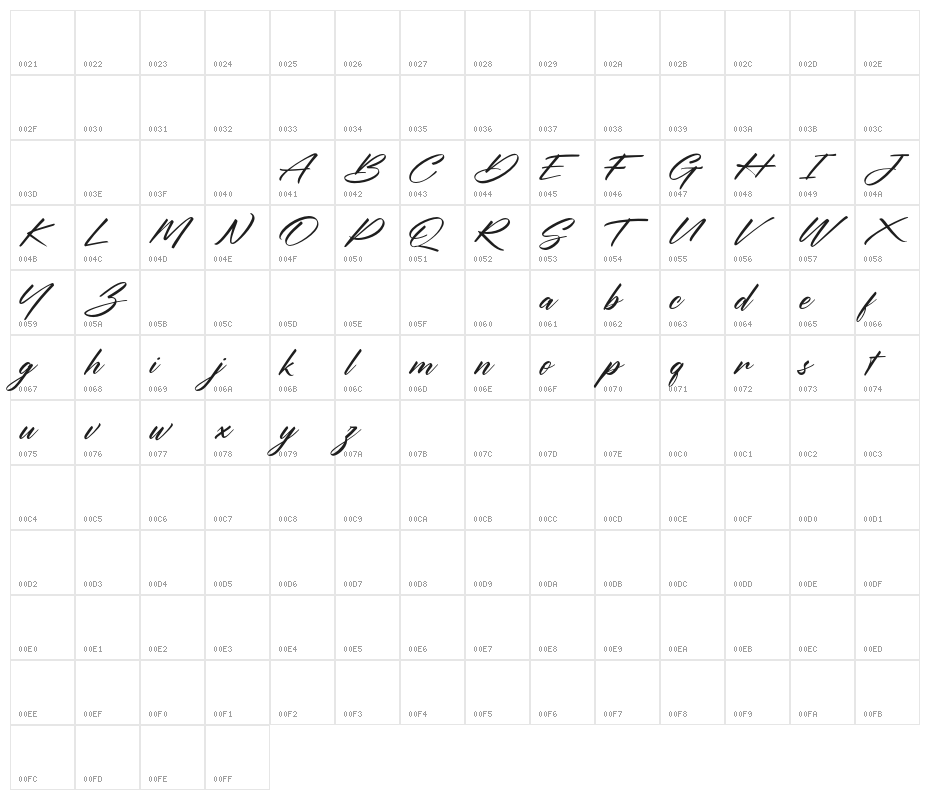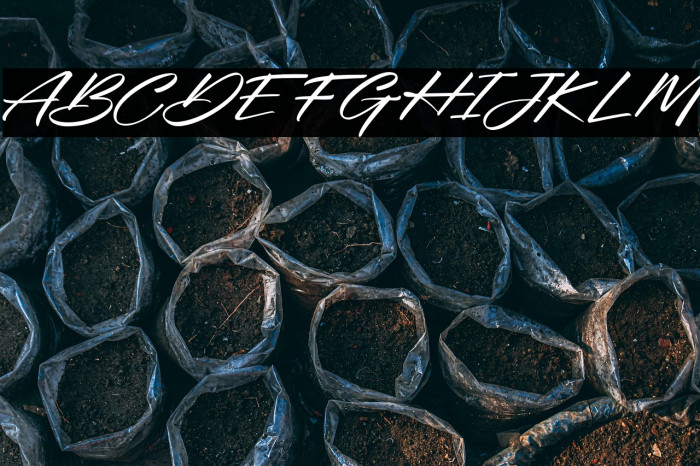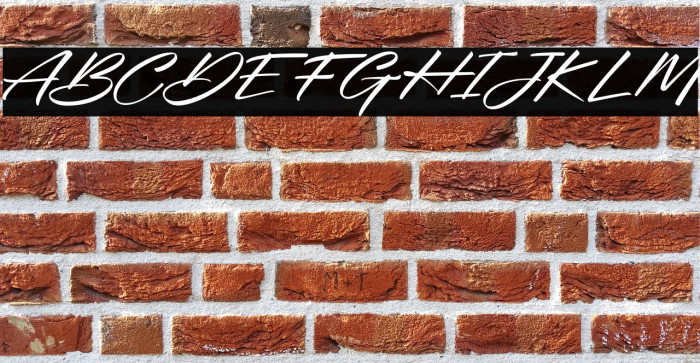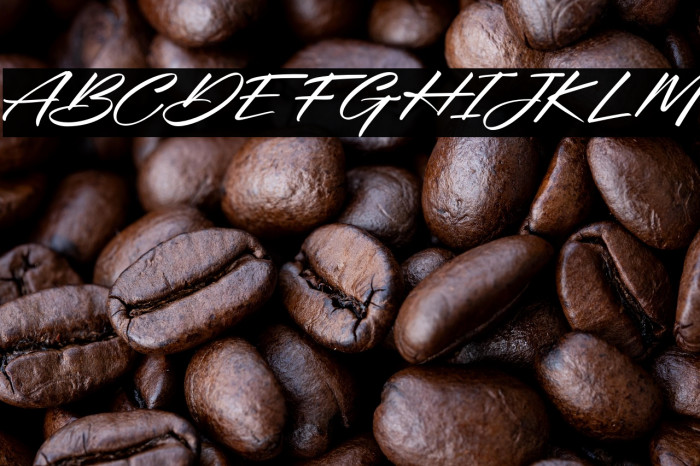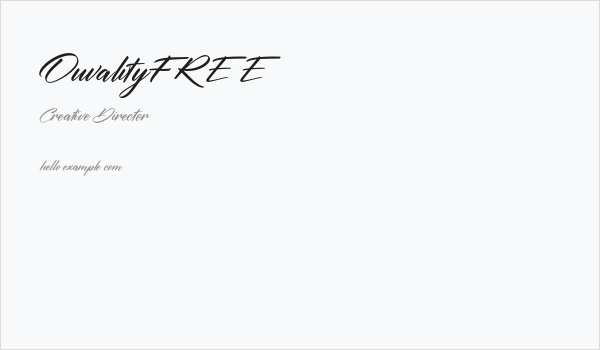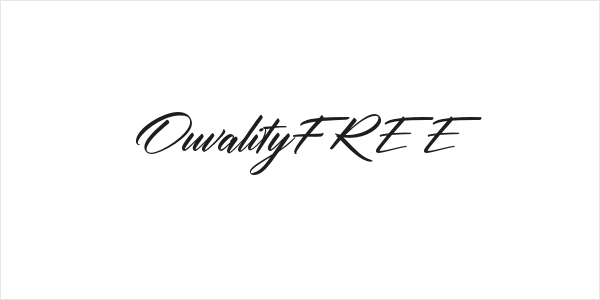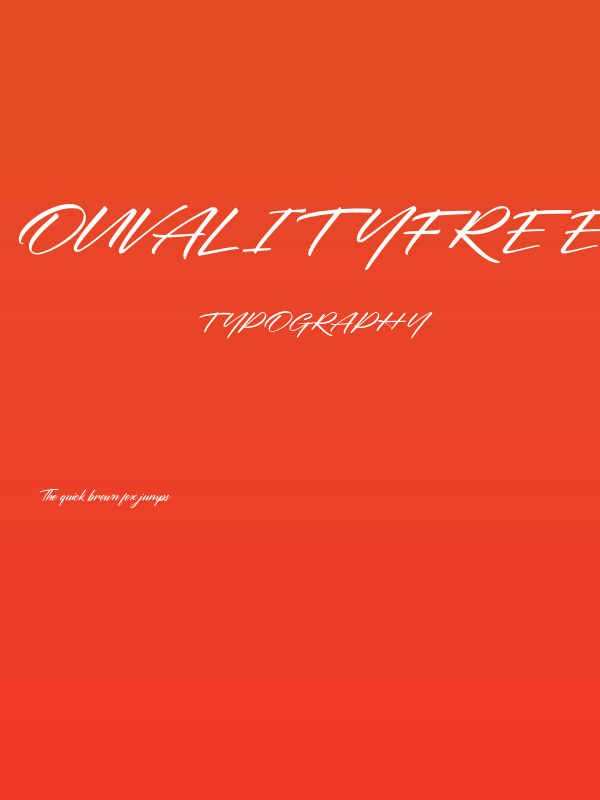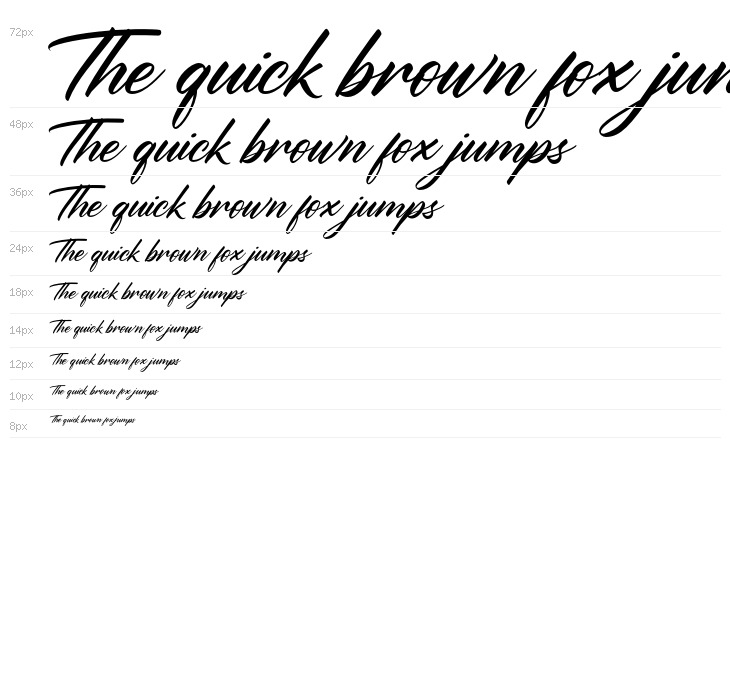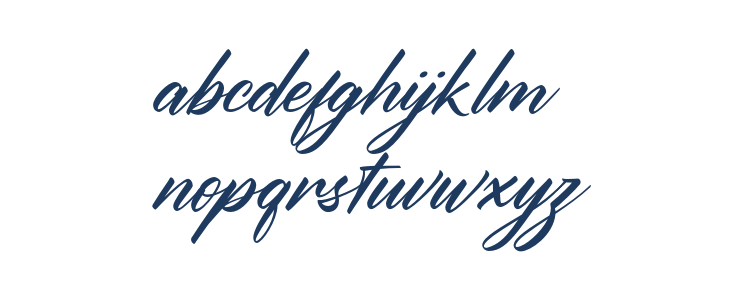
OuvalityFREE Font
OuvalityFREE Description
This font features a dynamic and flowing script style, characterized by its elegant and cursive letterforms. The uppercase letters are slightly slanted, giving a sense of movement and grace, while the lowercase letters maintain a consistent flow with smooth connections between each character. The strokes are moderately thick, providing a bold appearance without sacrificing readability. This font exudes a sense of sophistication and creativity, making it suitable for a variety of design projects that require a personal touch. The overall aesthetic is both modern and timeless, appealing to those who appreciate a classic script with a contemporary twist.